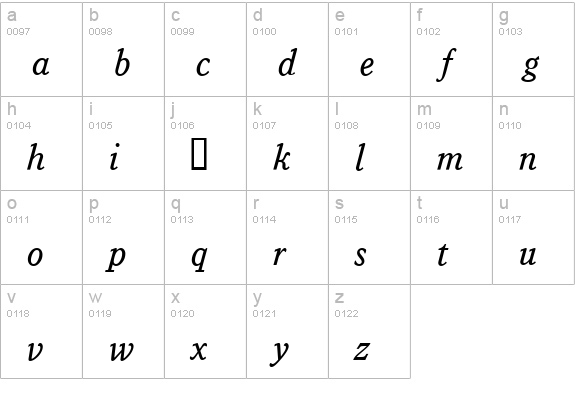
Istria-Old-Style-Italic is a distinctive, italic variant in the Istria typeface family \xE2\x80\x94 well suited to design and typography projects.
Istria-Old-Style-Italic is a timeless and elegant font that exudes a sense of history and sophistication. With its classic and graceful italic style, this font is perfect for adding a touch of vintage charm to any design project. The flowing curves and delicate serifs of Istria-Old-Style-Italic create a sense of refinement and elegance that is sure to captivate your audience. Best of all, Istria-Old-Style-Italic is available for free download at FontsMarket.com. This means that you can easily incorporate this beautiful font into your designs without any additional cost. Whether you are working on a website, branding materials, or any other creative project, Istria-Old-Style-Italic is sure to elevate your work with its timeless appeal and classic beauty. Download it today and add a touch of old-world charm to your designs!